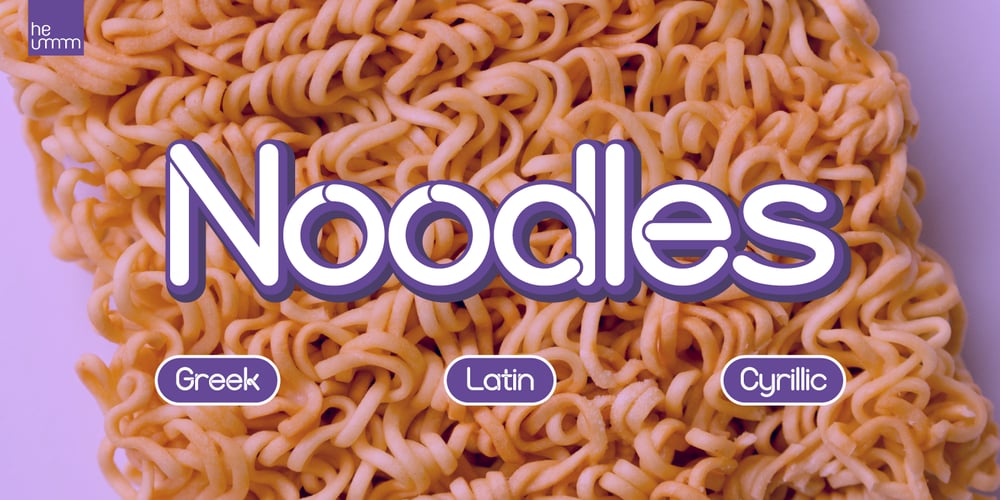
HU Noodles Font Family was designed by Roland Hüse and published by Heummdesign. HU Noodles contains 1 styles and family package options. HU Noodles is a latin alphabet font. This is a stencil-type font designed by drawing with one brush and following the stroke order.It is characterized by rounded strokes and a tight square shape.It is recommended to use it for characteristic titles.